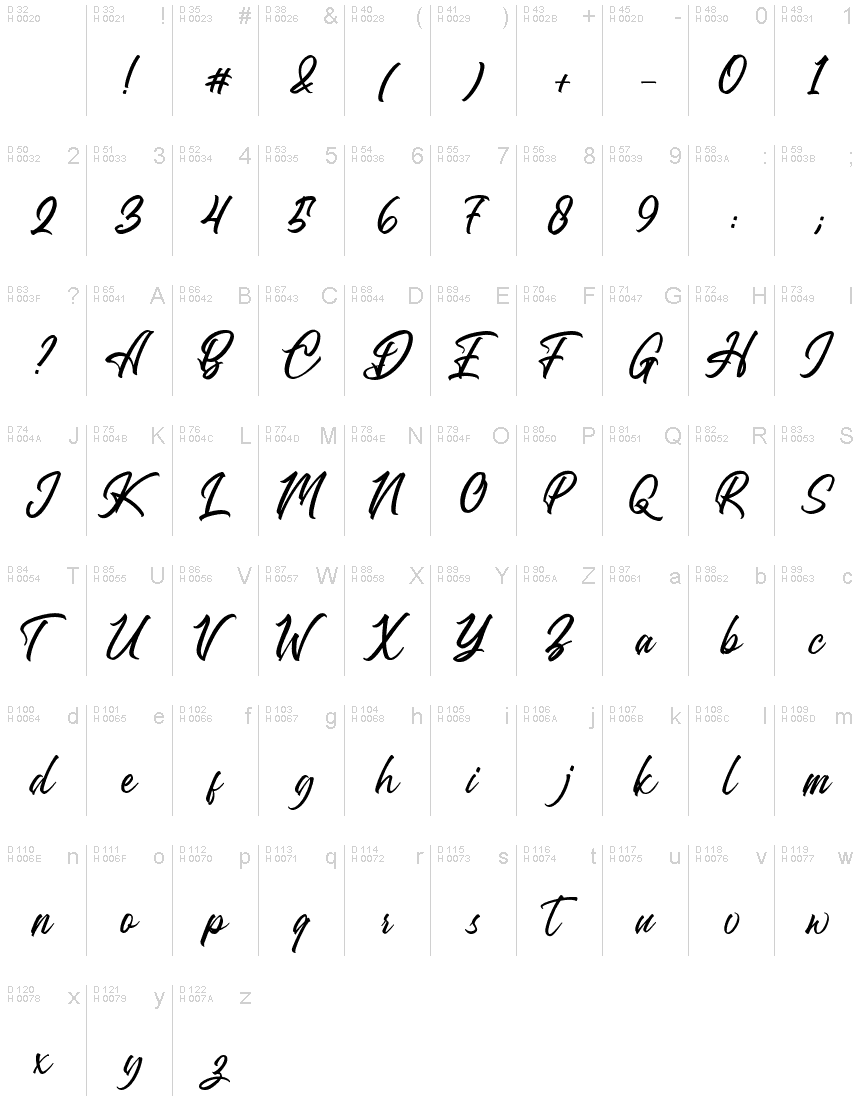
Jordan Dunk Regular
Jordan Dunk, the latest addition to the calligraphy font family, is a delicate and graceful typeface that adds elegance to any project. Created by Rian Rahardi, this light-weight font boasts of its flowing strokes and subtle curves that make it perfect for wedding invitations, greeting cards, and elegant branding materials. The Jordan Dunk font exudes sophistication while maintaining legibility and readability in both print and digital formats. Whether you're designing a luxurious packaging or a simple blog header, Jordan Dunk is sure to add that touch of class you've been looking for. Try it out today!